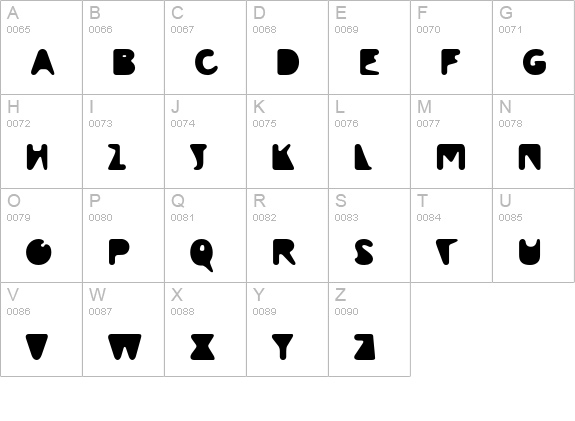
DropletExtra Font Details
Introducing DropletExtra font, a sleek and modern typeface designed to make your designs stand out from the crowd. With its clean lines and unique styling, DropletExtra is perfect for a wide range of projects, from branding and packaging to posters and websites. This versatile font offers a bold and impactful look, making it ideal for creating eye-catching headlines and titles. Its distinctive letterforms add a touch of sophistication to any design, while still maintaining a sense of playfulness. Best of all, DropletExtra is available for free download at FontsMarket.com, so you can start using it in your projects right away. Don't miss out on this fantastic opportunity to enhance your designs with this stylish and contemporary typeface.